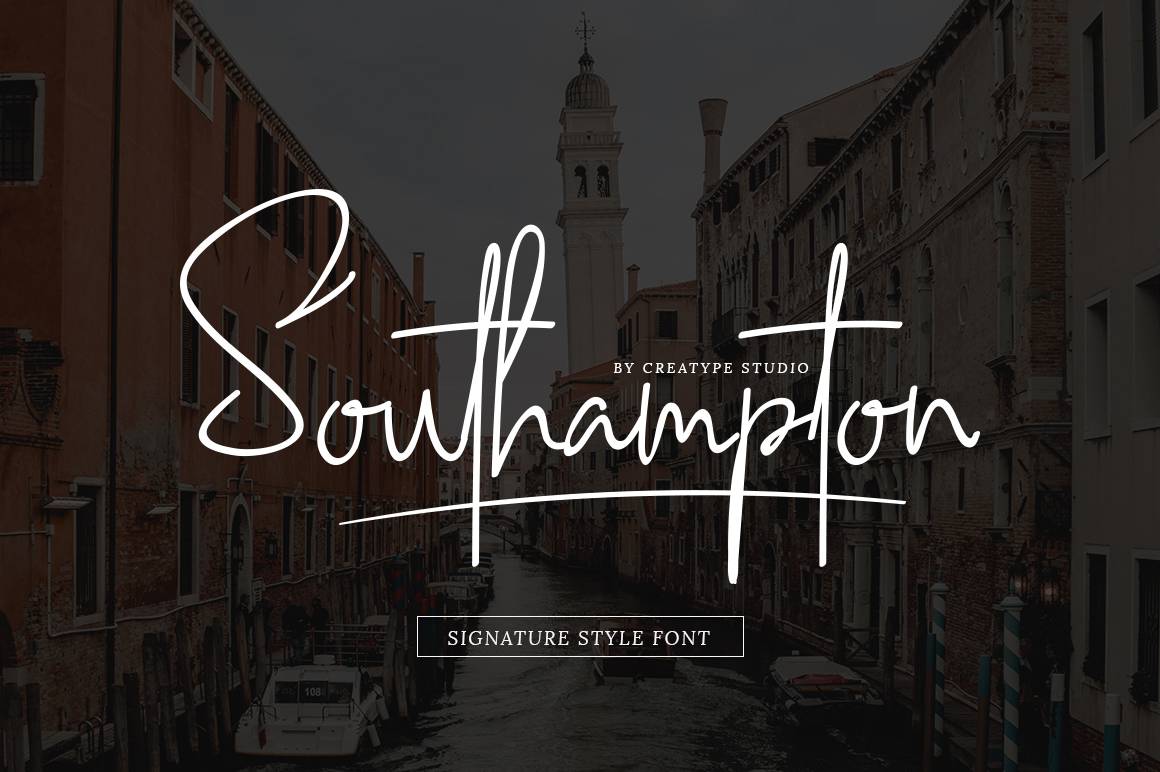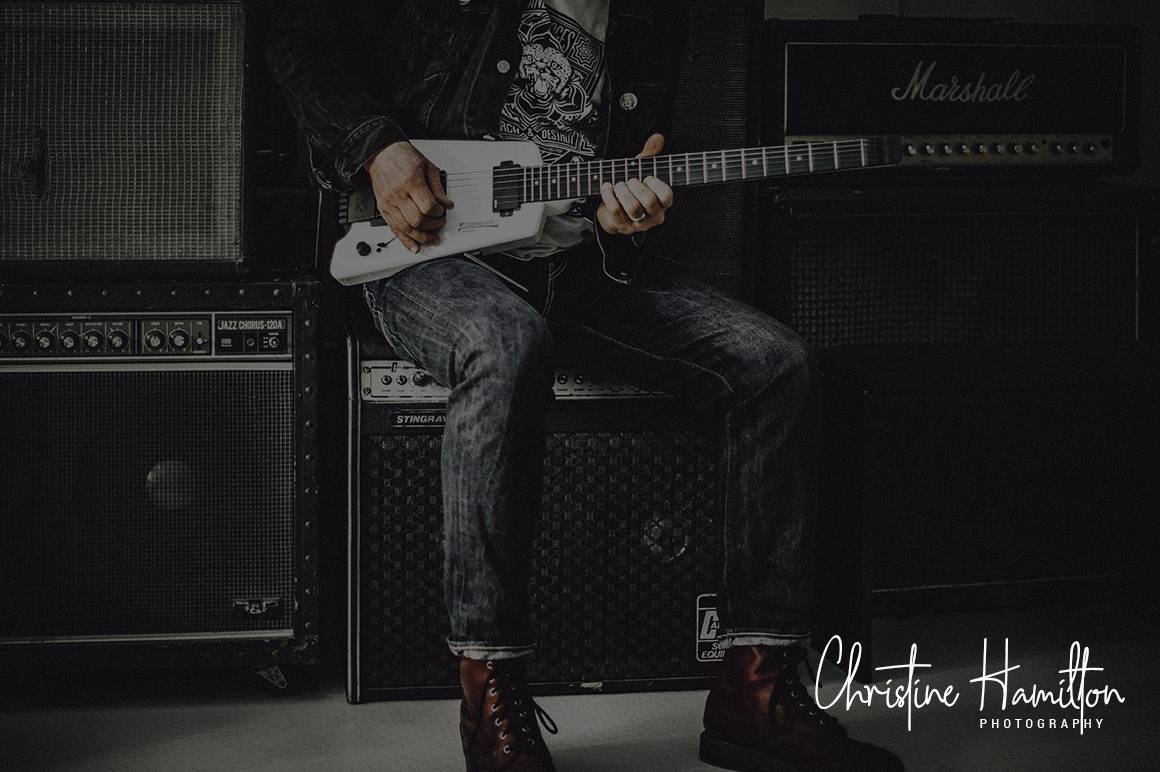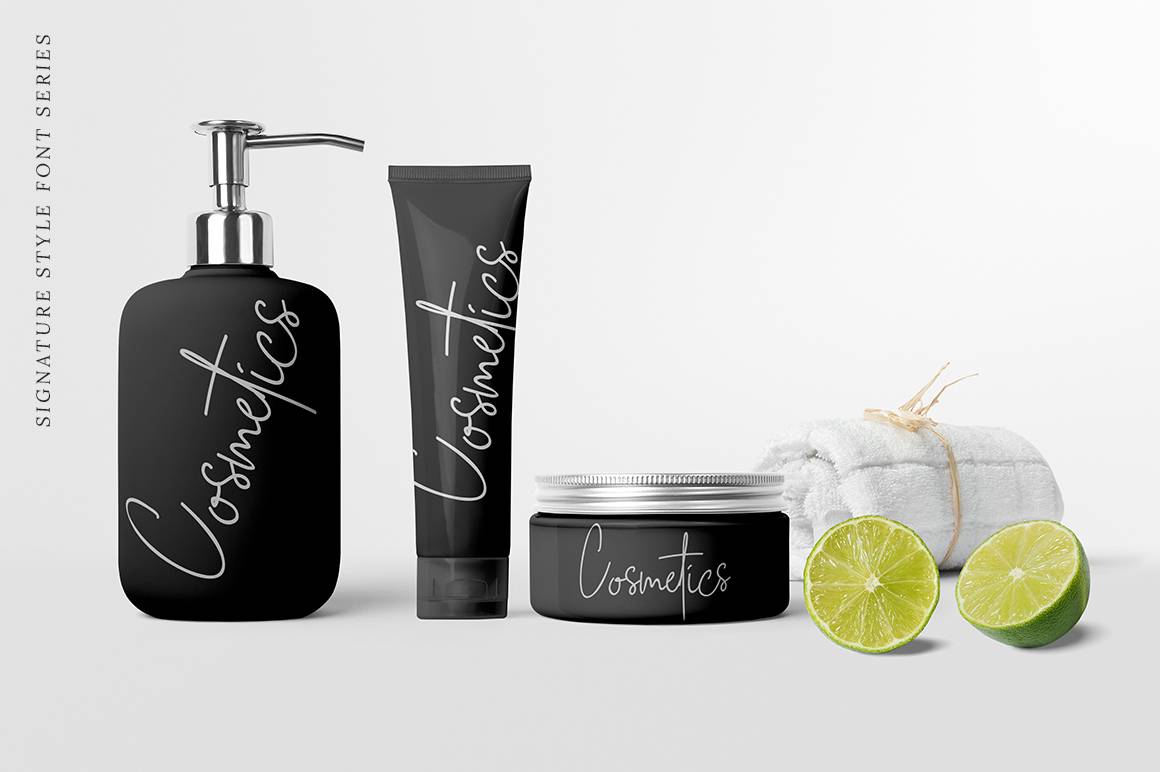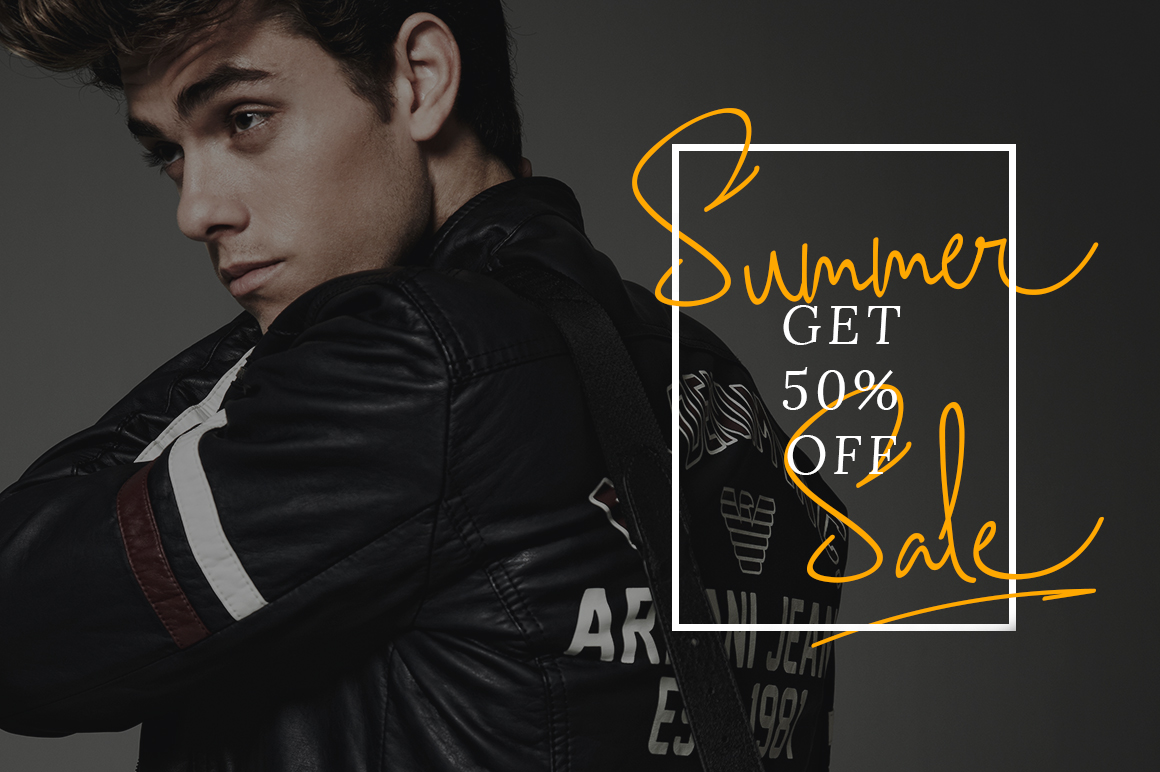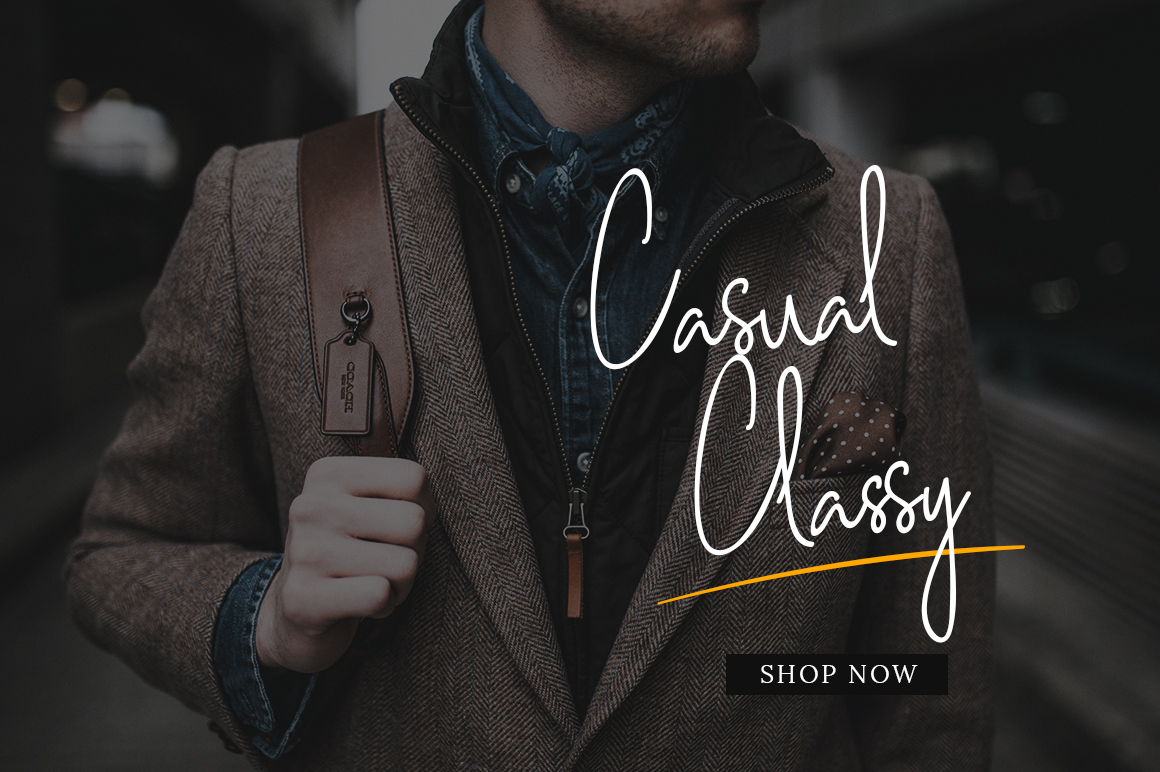
Southampton Signature Style is a delicate, handwritten script font that exudes elegance and modern charm with its tall, slender letterforms and graceful, flowing lines. Its light weight and airy spacing give it a refined, personal touch, making it ideal for luxury branding, wedding invitations, and stylish logos that demand sophistication and a handwritten feel. This font works beautifully in headlines and decorative text, where its unique character can shine.
Southampton Signature Style
About Southampton Signature Style
| Font family | Southampton Signature Style |